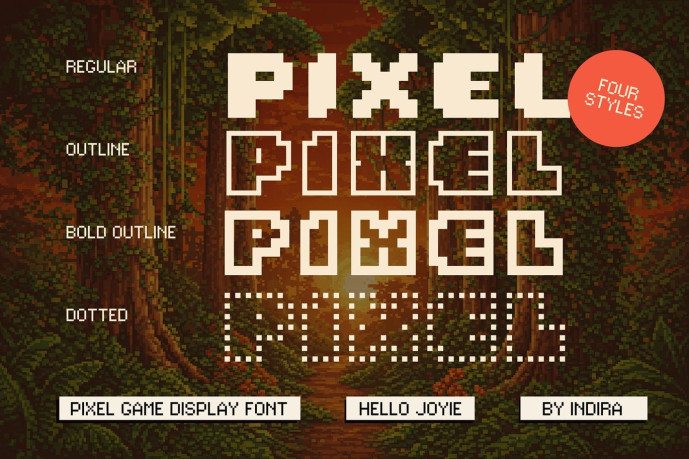
Pixel Display Font
Designer: indirastd
Pixel Display Font is a cheerful pixel font designed to bring warmth and excitement to the world of gaming. Created with a fluid bitmap style and rounded pixel edges, this display font exudes a friendly retro vibe while remaining fresh and modern. Its soft yet bold character shapes make it perfect for game titles, UI screens, menus, and cozy in-game messages that need to be welcoming, fun, and instantly appealing.
Designed for creators who want to craft joyful and immersive gaming experiences, Hello Joyie adds a playful twist to classic pixel fonts. Whether you’re designing sandbox adventures, casual games, streaming overlays, coding visuals, or digital branding, this font exudes a bright and adorable personality that stands out. With its charming arcade feel and approachable design, Hello Joyie helps transform every project into a fun, colorful, and memorable gaming experience.
Hello Joyie Dotted
Hello Joyie Outline BOld
Hello Joyie Outline
Hello Joyie